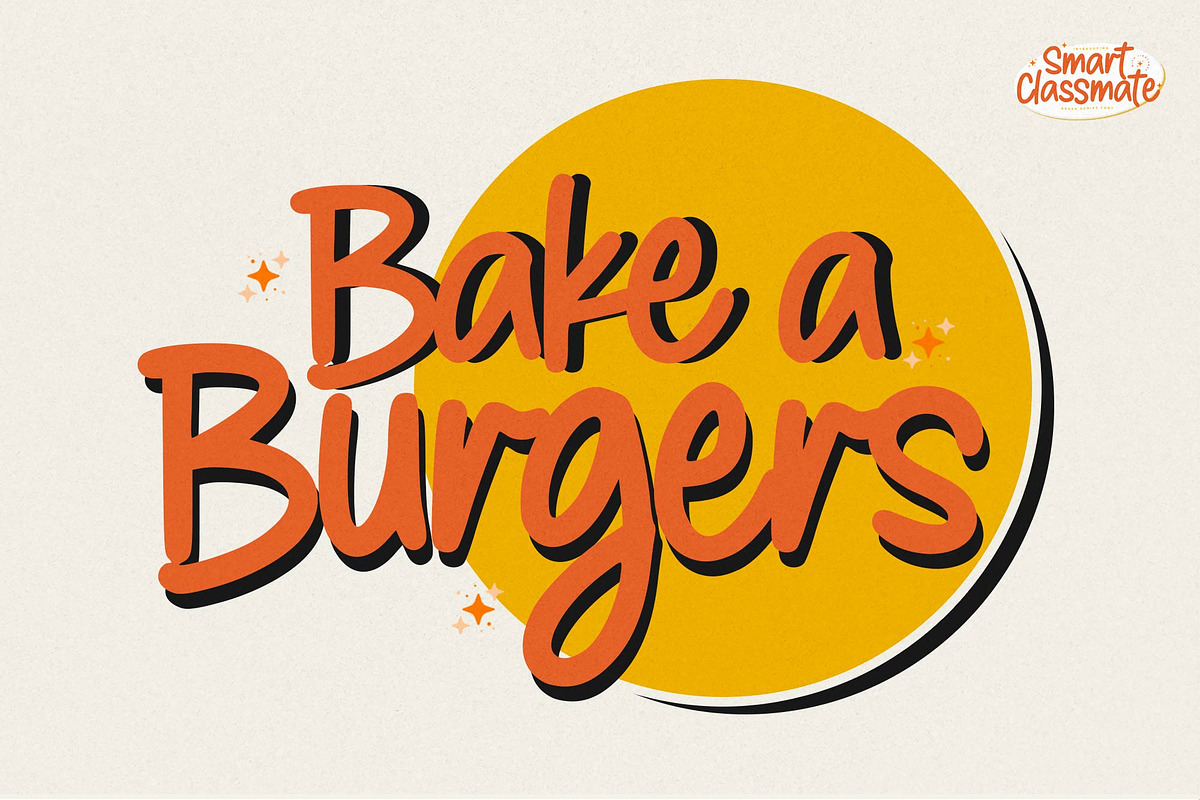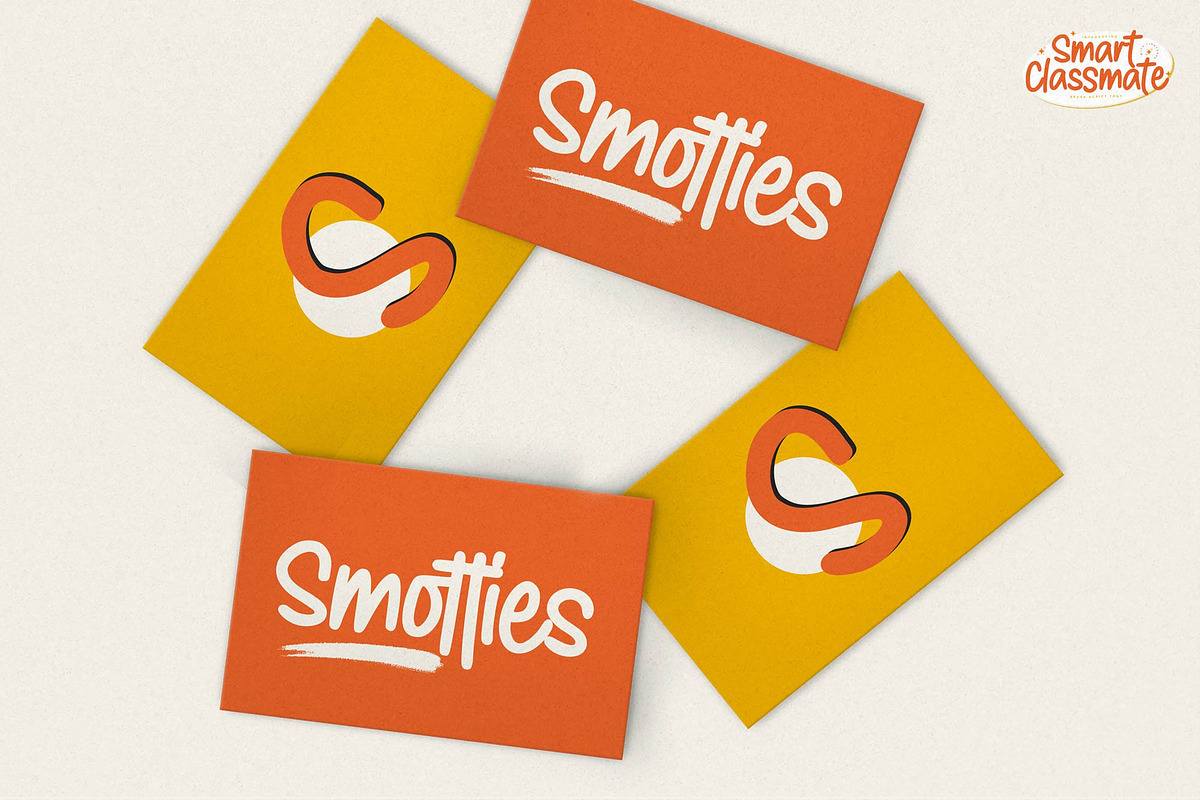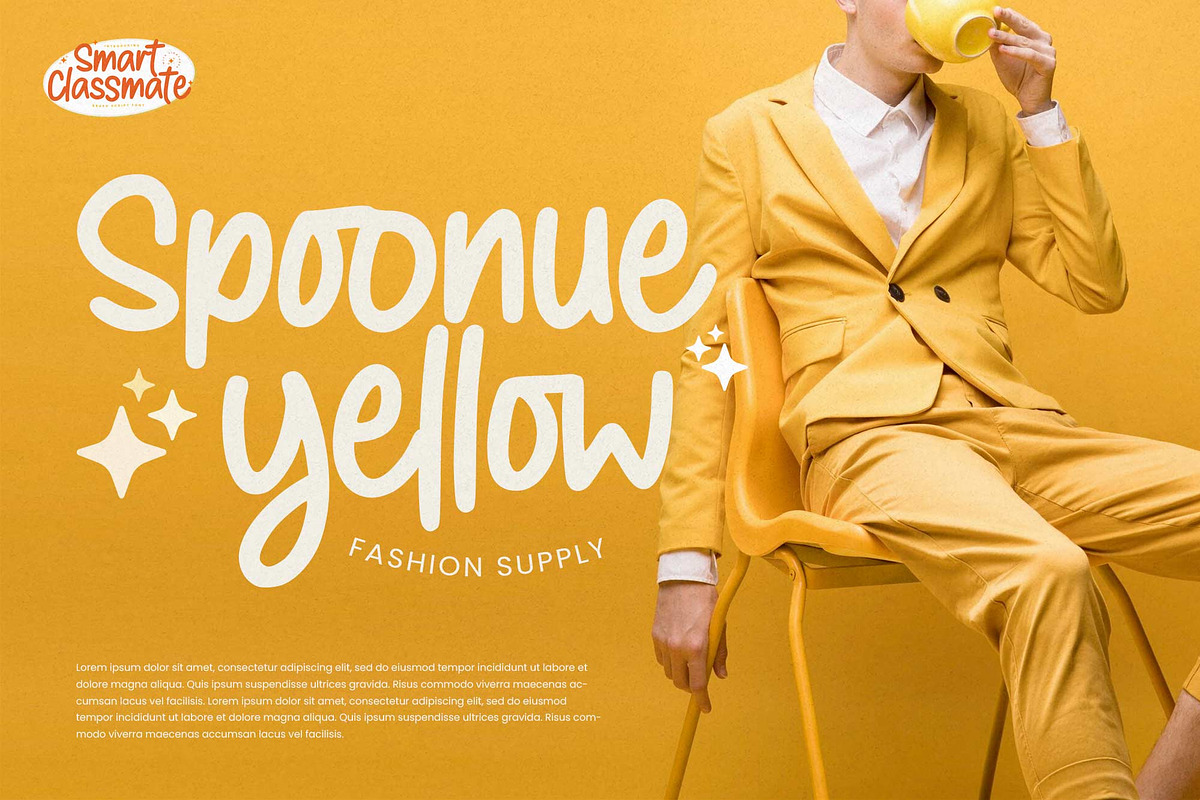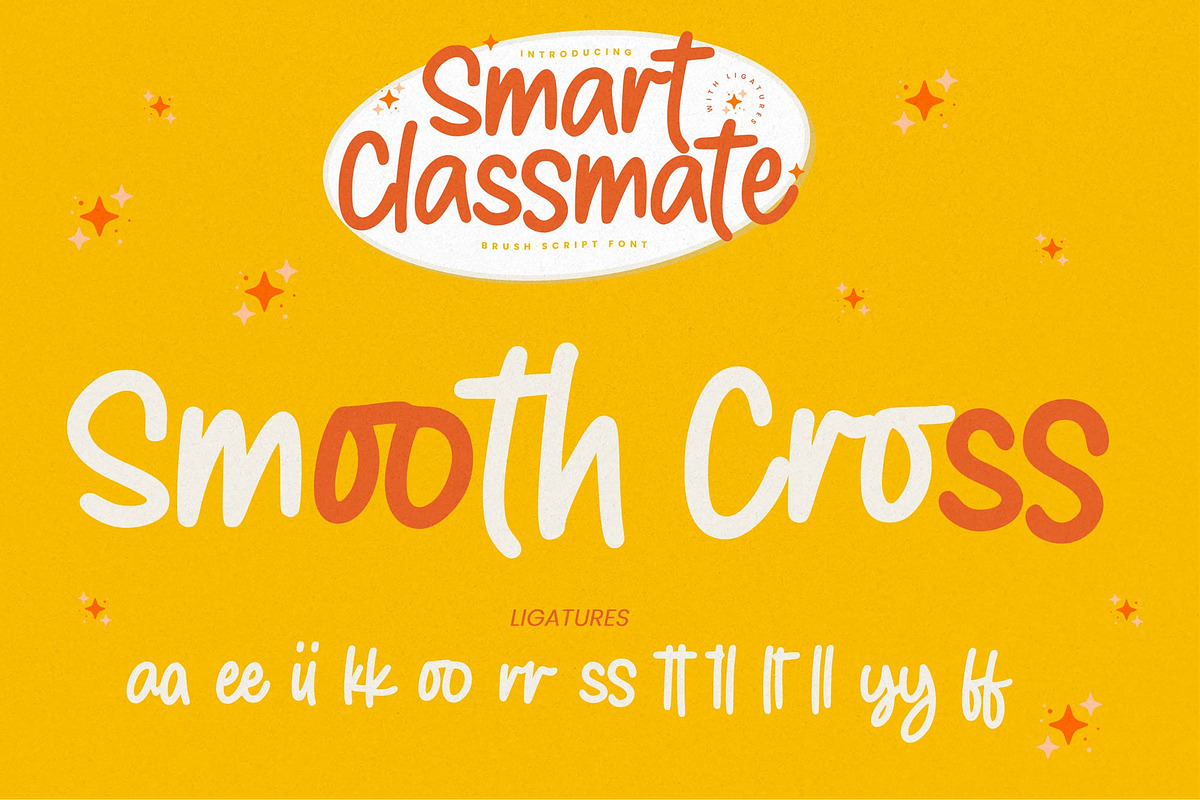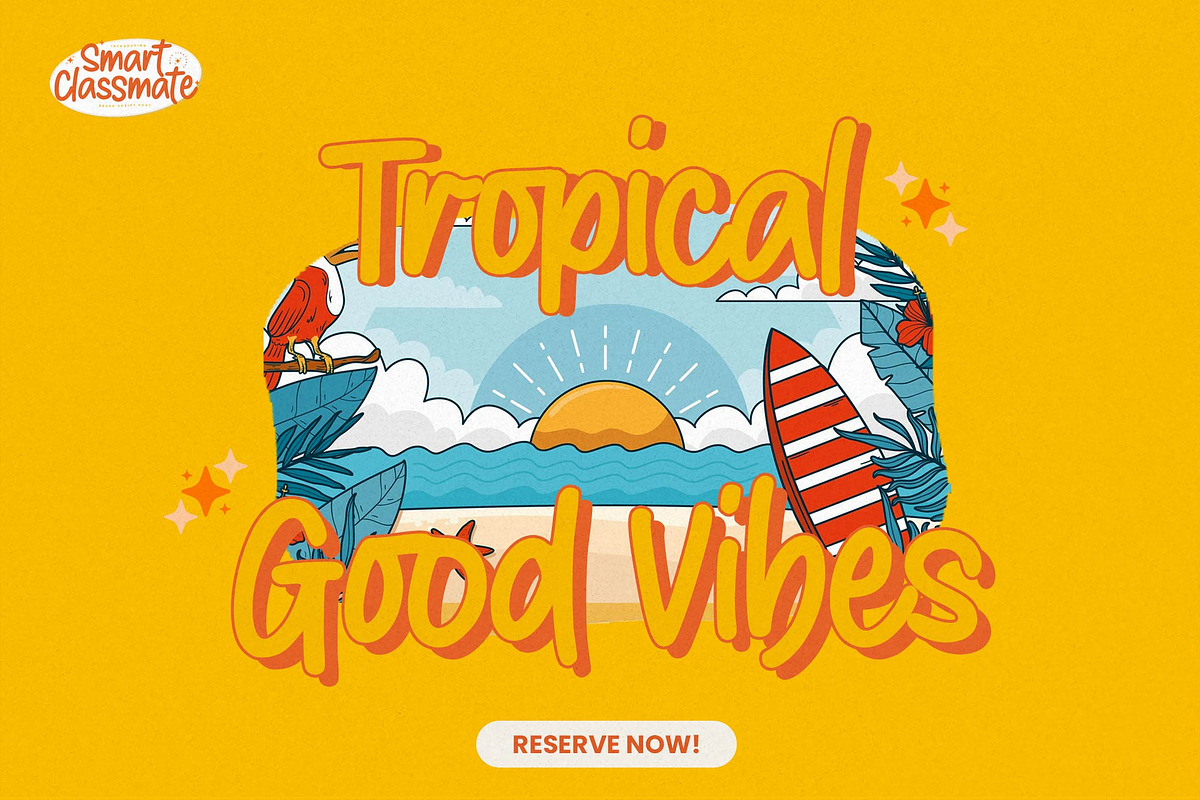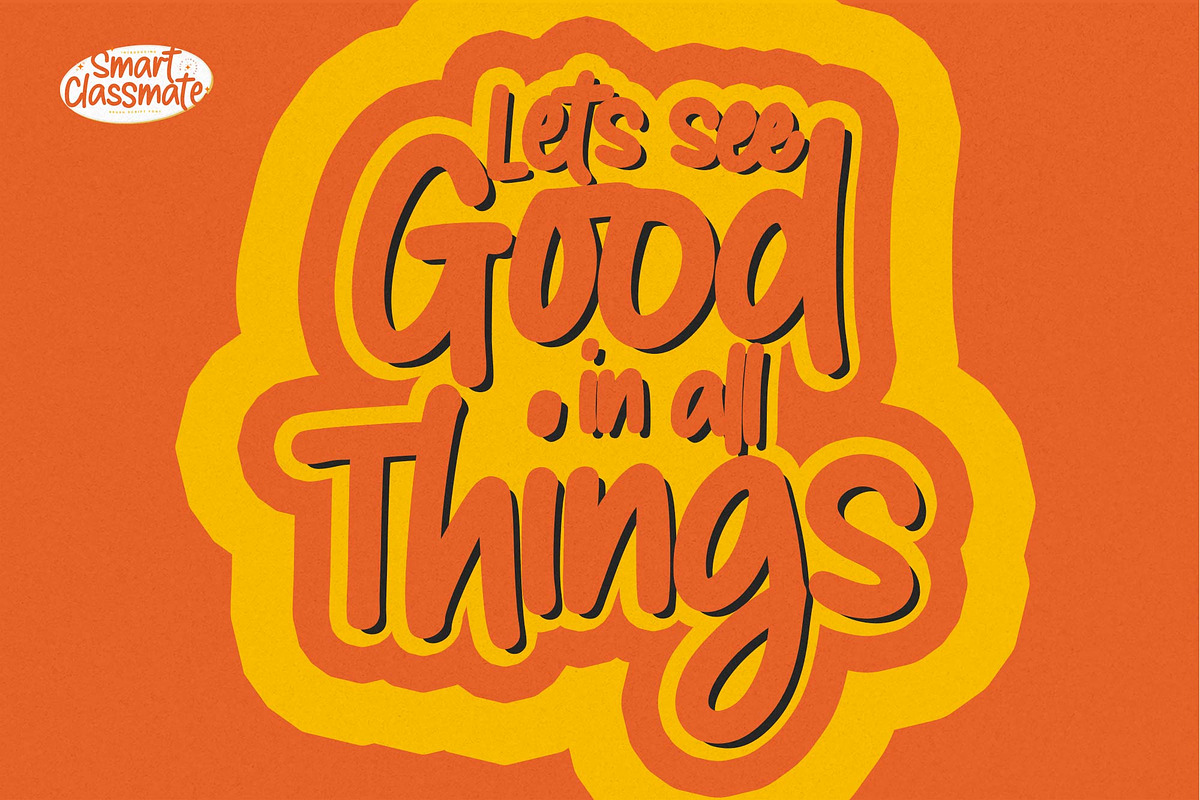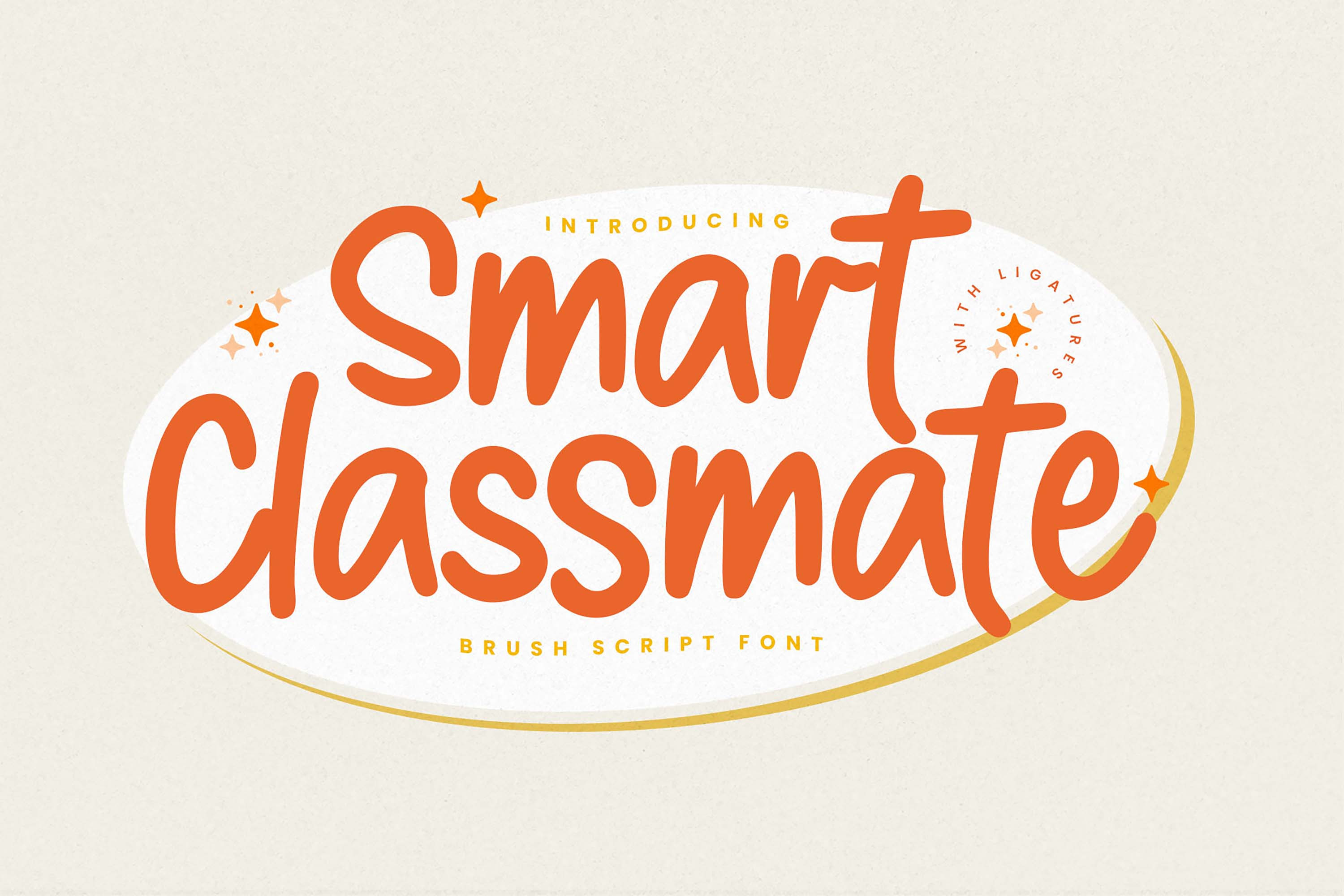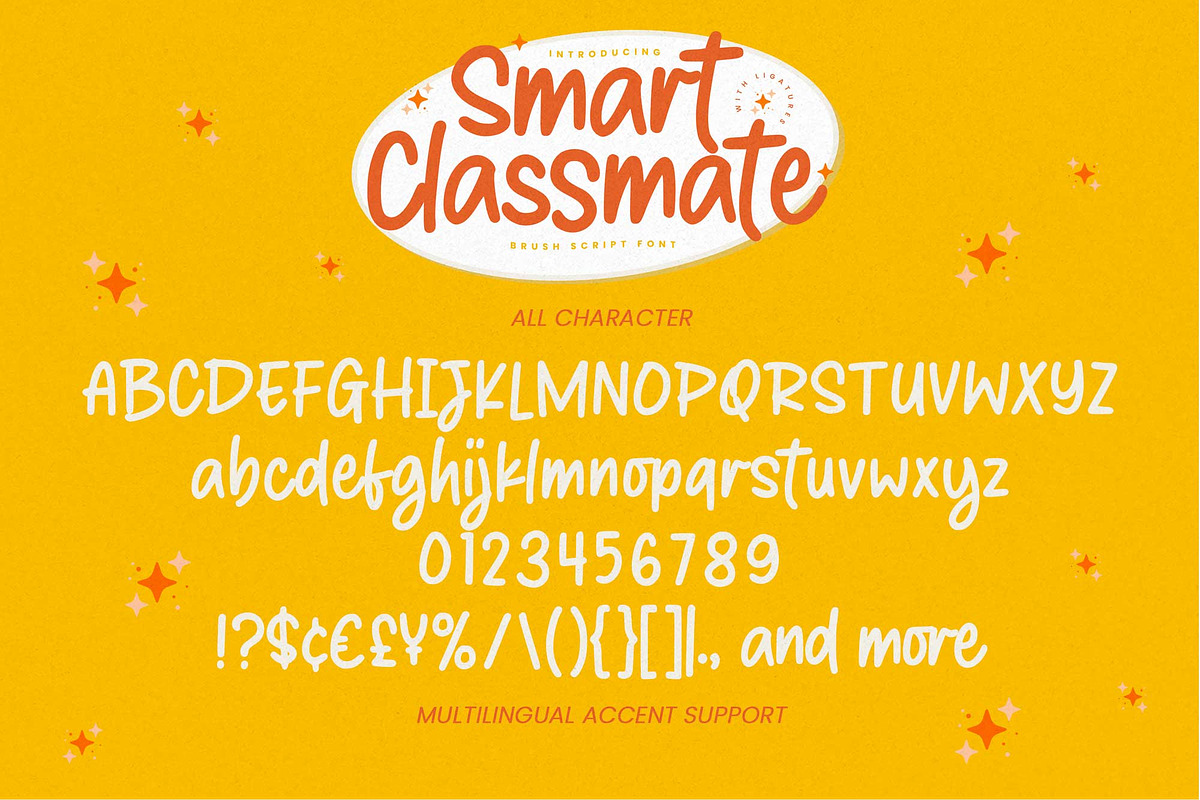
Smart Classmate – Brush Script Font
Smart Classmate is a script font, this is a handmade font with its natural and ligatures, this font is perfect for making a strong statement in your designs.
Logos
Posters
Product packaging
Branding
Advertisements
Invitations
Stationery
Wedding designs
Labels
Photography watermarks
Quotes
and more